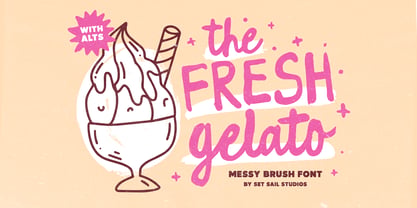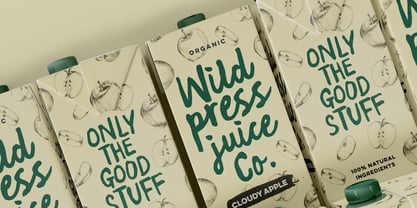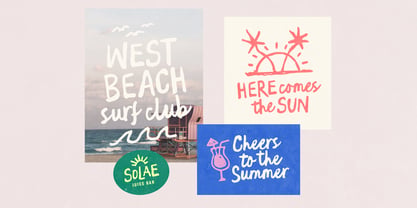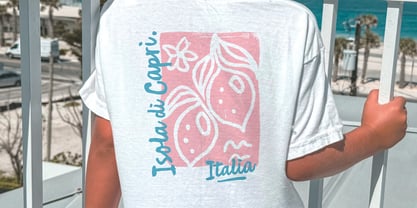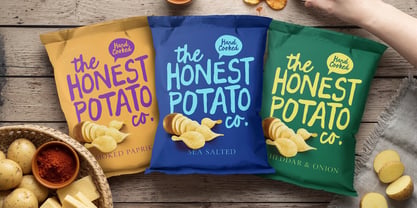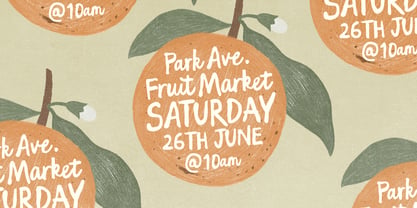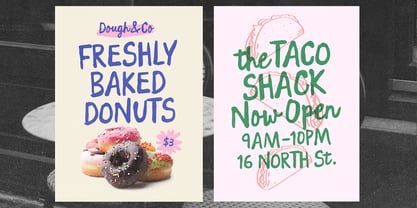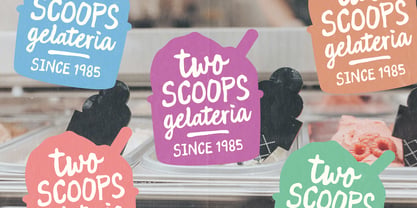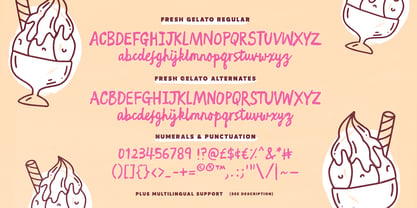
Fresh Gelato
by Set Sail Studios
The Fresh Gelato Font Family was designed by Sam Parrett and published by Set Sail Studios. Fresh Gelato contains 2 styles and family package options. More about this family
Introducing the Sweet Gelato Brush Font! A wonderfully wonky and messy brush font designed to maintain all the goodness of realistic human-made imperfection, achieved by painting each letter by hand with a real paintbrush. Sweet Gelato was carefully drawn to work well in lowercase as well as all-caps, and also includes a full set of alternate characters for each—giving you a range of different layout and customisation options, as well as helping to avoid any repeated characters and maintain a handmade realism and charm.
It’s a great choice for when your design needs a little more human touch, making it perfect for handmade quotes, rustic and organic packaging, charming logos, posters, merchandise and more.
The Sweet Gelato fonts include Language Support for; English, French, Italian, Spanish, Portuguese, German, Swedish, Norwegian, Danish, Dutch, Finnish, Indonesian, Malay, Hungarian, Polish, Croatian, Turkish, Romanian, Czech, Latvian, Lithuanian, Slovak, Slovenian.